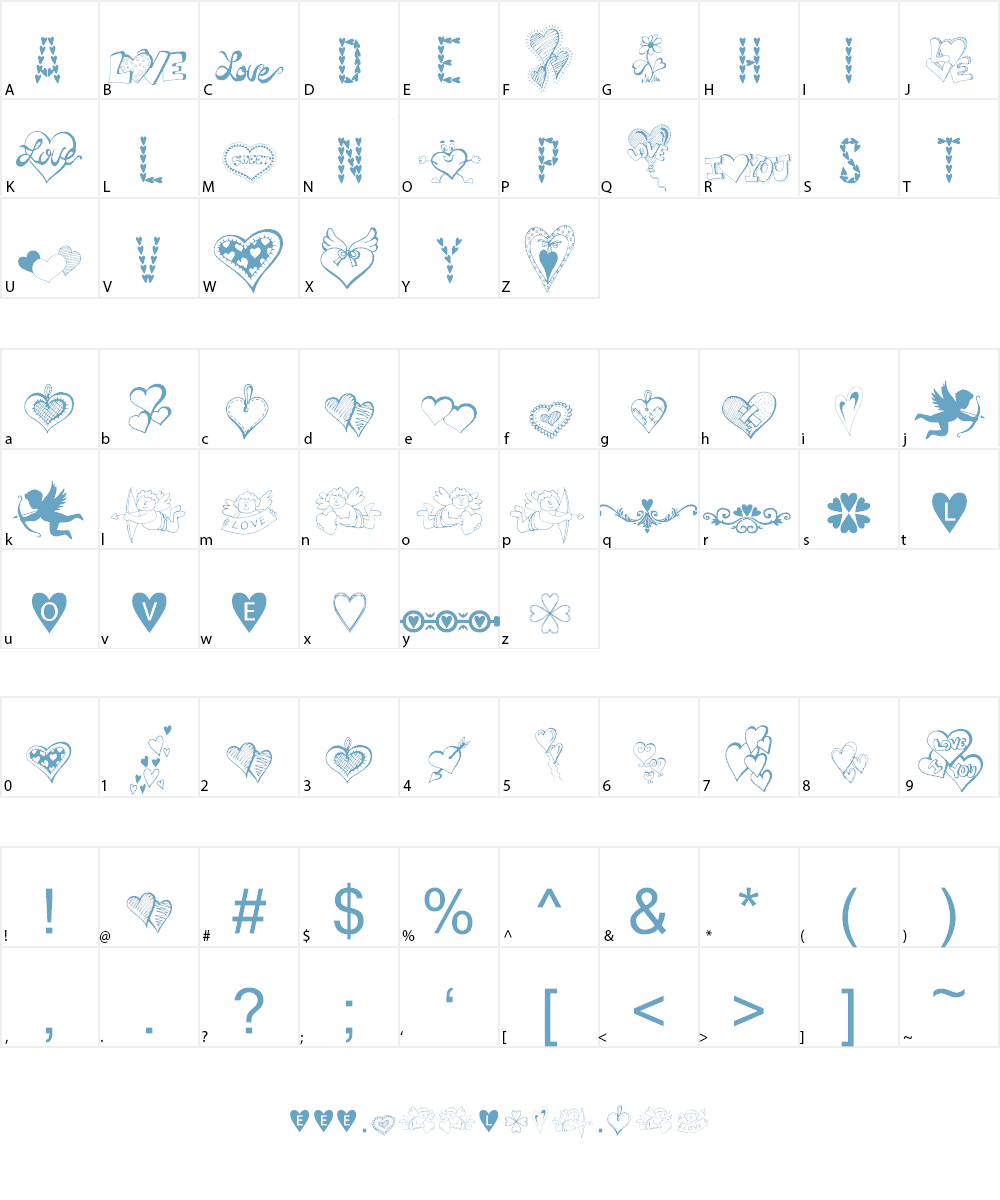
..."LOVE IS IN YOUR HEART NOT TO STAY, BUT TO BE SHARED"....
You can have our HAPPY VALENTINES DAY font FOR FREE!!! You may use our cute collection of decoration elements as complements for your love cards or for any other artwork.